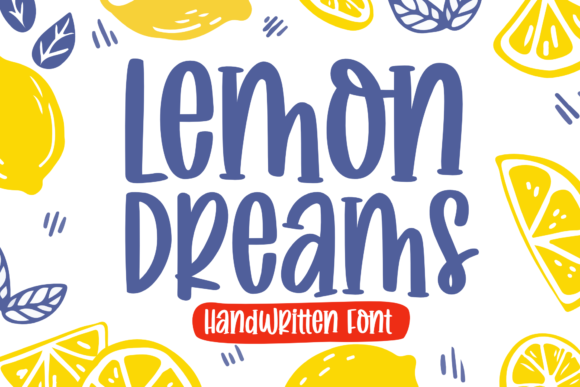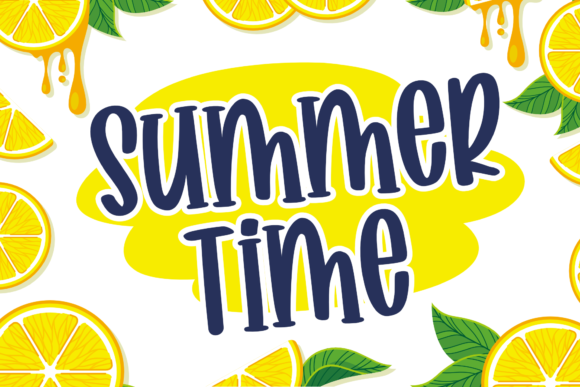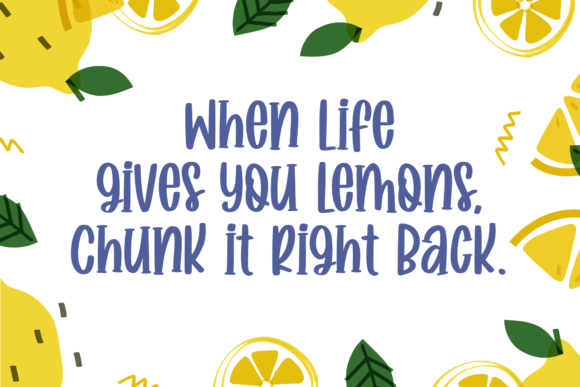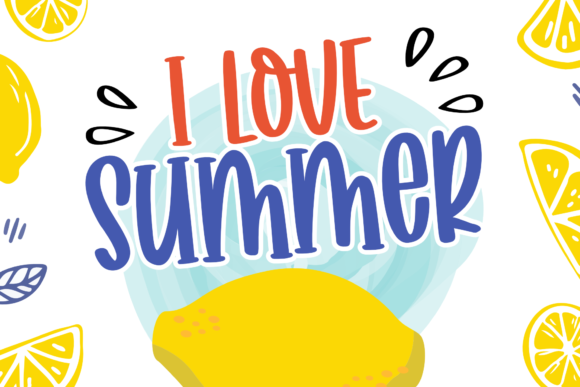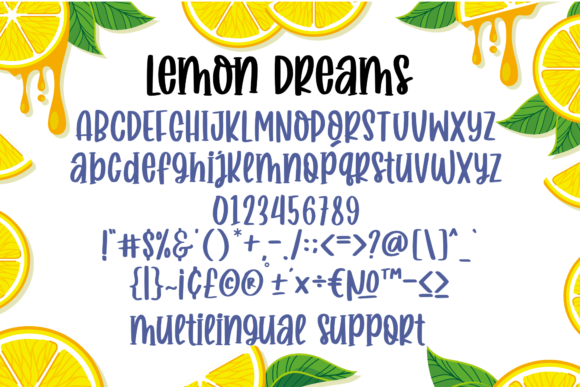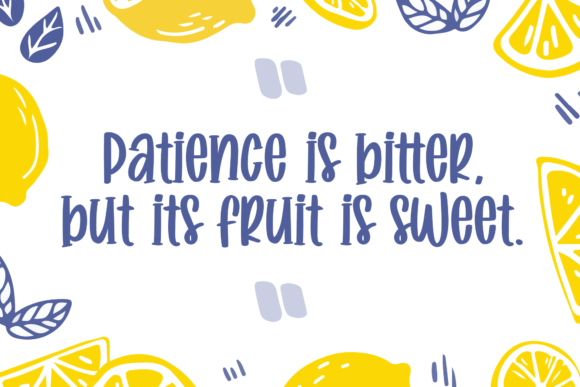
Lemon Dreams Font
About Lemon Dreams Font
Lemon Dreams is cute handwritten font. It is bouncy, charming and perfect for many design projects or crafting ideas!